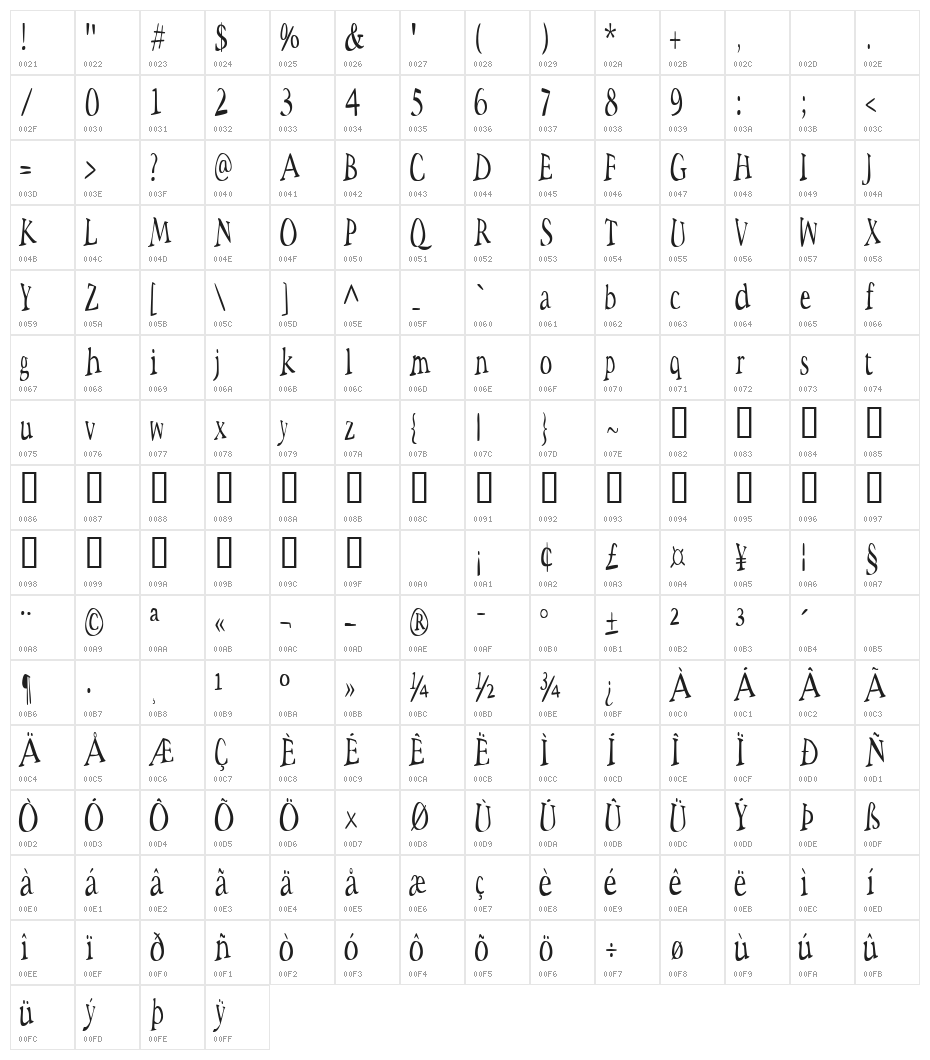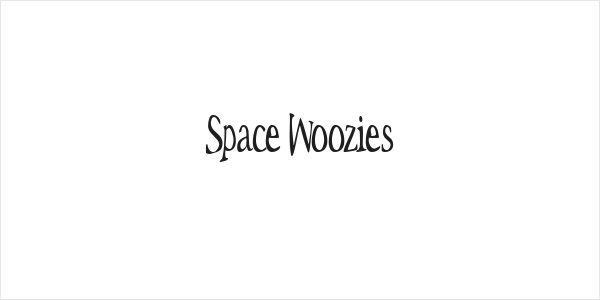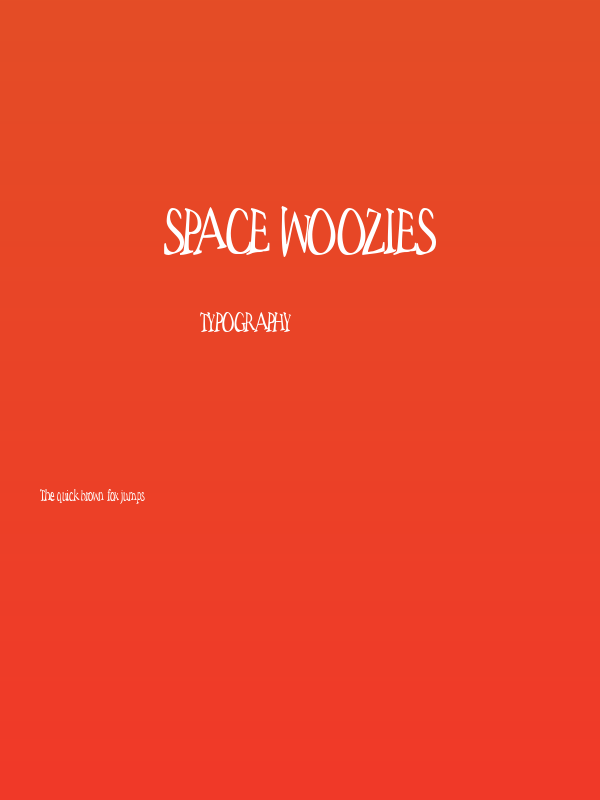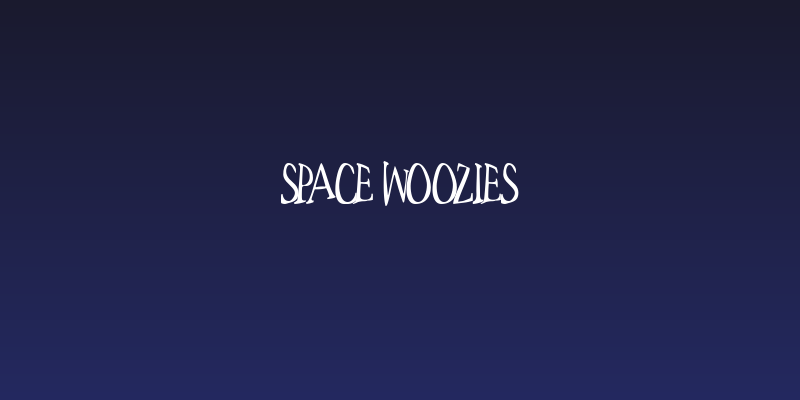
Space Woozies Font
Space Woozies Description
This font features a whimsical and playful design, characterized by its uneven and slightly tilted letterforms. The strokes are varied in thickness, giving it a hand-drawn appearance that adds a sense of movement and energy. The uppercase letters are bold and prominent, while the lowercase letters maintain a consistent style with a slightly more condensed form. Numbers and special characters are designed to match the playful aesthetic, making them stand out with their unique shapes. Overall, this font exudes a fun and informal vibe, perfect for creative and lighthearted projects.
Overall StylePlayful, Whimsical
Proposed ProjectsIdeal for children's books, party invitations, playful branding, and creative posters.